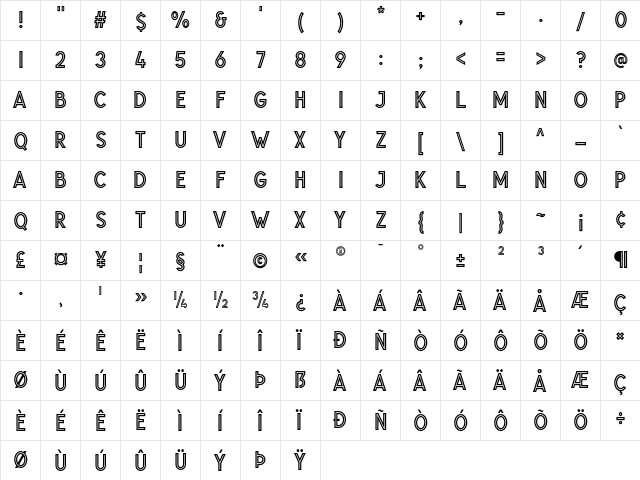
Glaschu Inline Regular
| Foundry | Braw Type |
| Designer | Rae Arnott |
Design Context for Glaschu Inline Typeface
Glaschu Inline brings ornamental detail and strong personality to headlines and identities, where visual impact matters more than quiet functionality.
Font Pairing: Pair with a clean neutral sans-serif for body copy to let Glaschu Inline's character lead without overwhelming the composition.
Pro Tip: Use Glaschu Inline exclusively at display sizes — it was designed to be seen, not read at length. Let a neutral companion handle body copy.